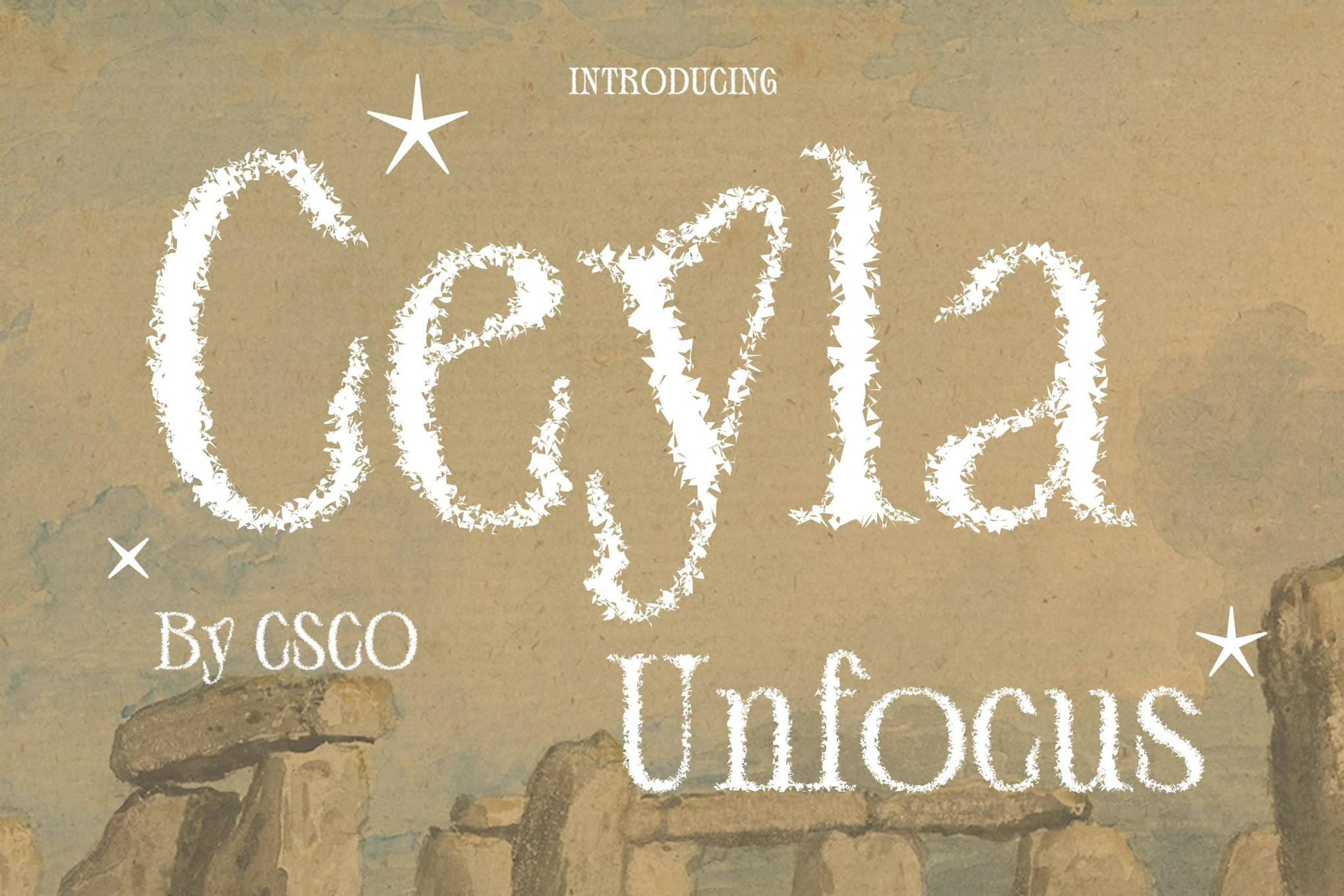
Ceyla Unfocus Font
Ceyla Unfocus Font illuminates celestial astronomy publications, mystical stargazing event materials, ethereal spiritual center branding, cosmic meditation retreat signage, heavenly wedding invitations, lunar cycle wellness programs, celestial jewelry designs, astrology consultation materials, cosmic consciousness workshops, stellar observatory exhibitions, divine feminine empowerment campaigns, and heavenly lifestyle marketing where celestial beauty and atmospheric unfocus create transcendent cosmic experiences.
This ethereal typeface generates excitement through its perfect embodiment of celestial grace and cosmic feminine energy that creates typography channeling the mysterious beauty of starlit skies and divine feminine wisdom. Ceyla Unfocus Font captures the essence of celestial elegance with its softly luminous letterforms that suggest the gentle glow of distant stars and the ethereal quality of moonlight filtering through cosmic mist. The font's sophisticated design approach incorporates elements that evoke celestial movements, lunar cycles, and the divine feminine energy that connects earthly wisdom with cosmic consciousness. Its distinctive character reflects the grace, intuition, and cosmic awareness that define authentic spiritual practice and celestial connection.
The Ceyla Unfocus Font family encompasses multiple celestial variations including Regular, Light, Medium, Bold, and Cosmic versions, each maintaining the font's characteristic ethereal beauty while offering different levels of celestial impact. The collection features starlight-inspired blur effects, cosmic atmospheric treatments, and celestial textures that enhance its heavenly aesthetic. Additional elements include star symbols, lunar ornaments, celestial decorative borders, and cosmic flourishes that reinforce the font's connection to astronomical wonder and divine feminine energy.
Spiritual practitioners and cosmic wellness brands consistently select Ceyla Unfocus Font Free Download for projects requiring typography that communicates celestial wisdom and divine feminine energy. This remarkable typeface excels in applications where establishing spiritual credibility and conveying cosmic consciousness are essential for metaphysical and wellness success. The font's celestial qualities make it particularly effective for astronomy organizations, spiritual wellness centers, and cosmic consciousness programs targeting audiences who appreciate celestial beauty and divine feminine wisdom.
Whether you're designing astronomical educational materials, creating celestial wellness campaigns, developing cosmic consciousness programs, or crafting divine feminine empowerment communications, Ceyla Unfocus Font delivers unmatched celestial authenticity. Its ability to convey cosmic beauty, divine feminine energy, and celestial wisdom makes it invaluable for spiritual practitioners seeking typography that genuinely connects earthly experience with cosmic consciousness. The font's ethereal presence ensures your designs will communicate the celestial grace and divine wisdom that define exceptional cosmic communications and transcendent spiritual experiences.